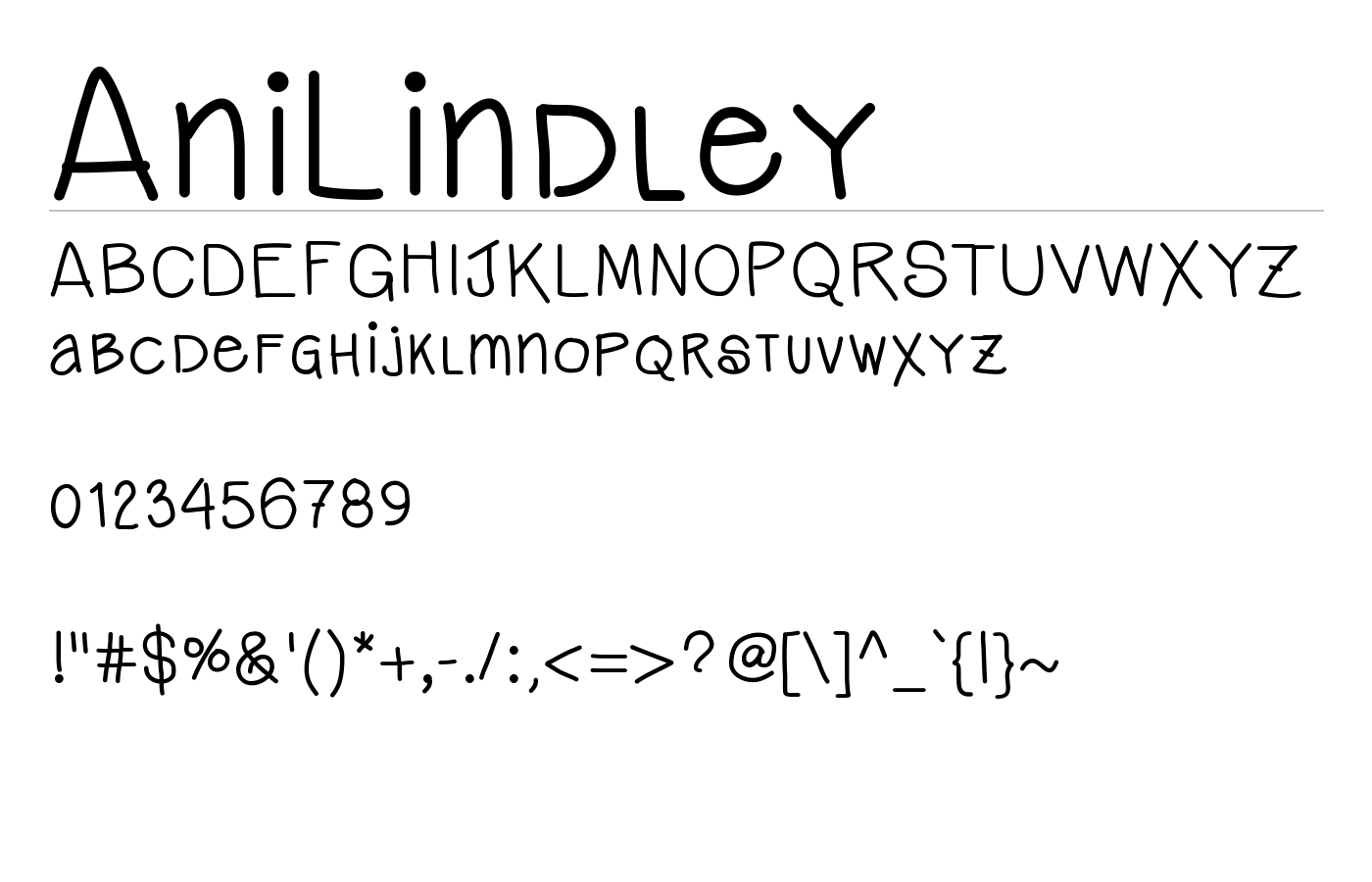
AniLindley is a playful and casual handwritten sans serif font with a light weight and a slightly uneven, organic stroke that gives it a friendly, approachable feel. Its tall x-height and simple rounded letterforms make it highly readable while maintaining a whimsical, informal charm ideal for children’s content, creative projects, or lighthearted branding. This font works best for headlines, logos, and informal communications where a personal and cheerful tone is desired.
AniLindley Font
About AniLindley Font